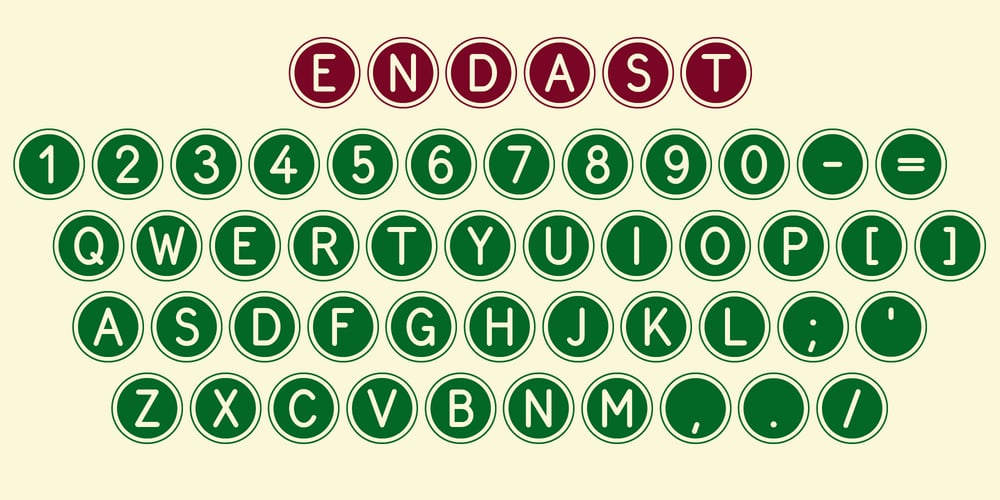
Endast Font Family was designed by Lars Törnqvist and published by Cercurius. Endast contains 1 styles and family package options. Sans-serif reversed capitals in outlined circles, resembling old-fashioned typewriter keys. Useful for logos and signs, and for enhancement in lists and maps.